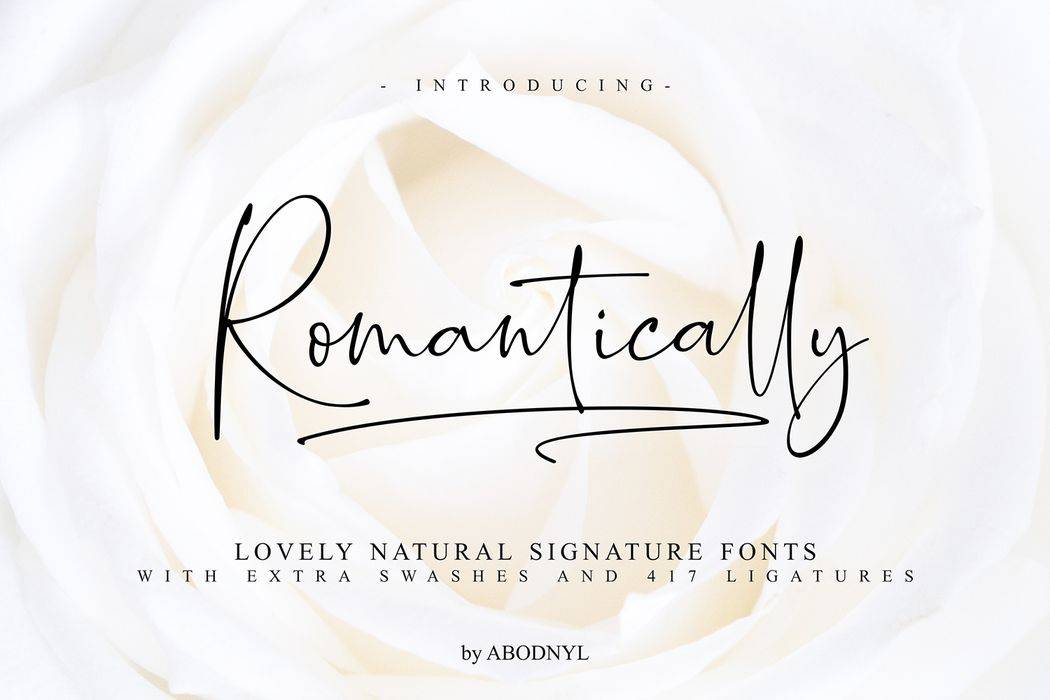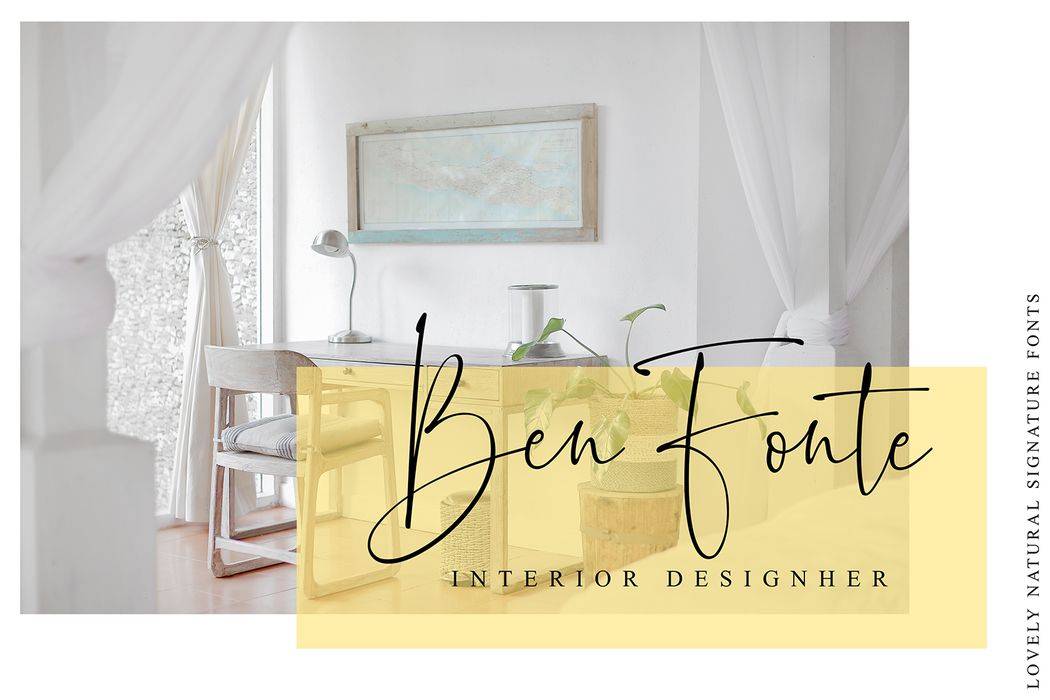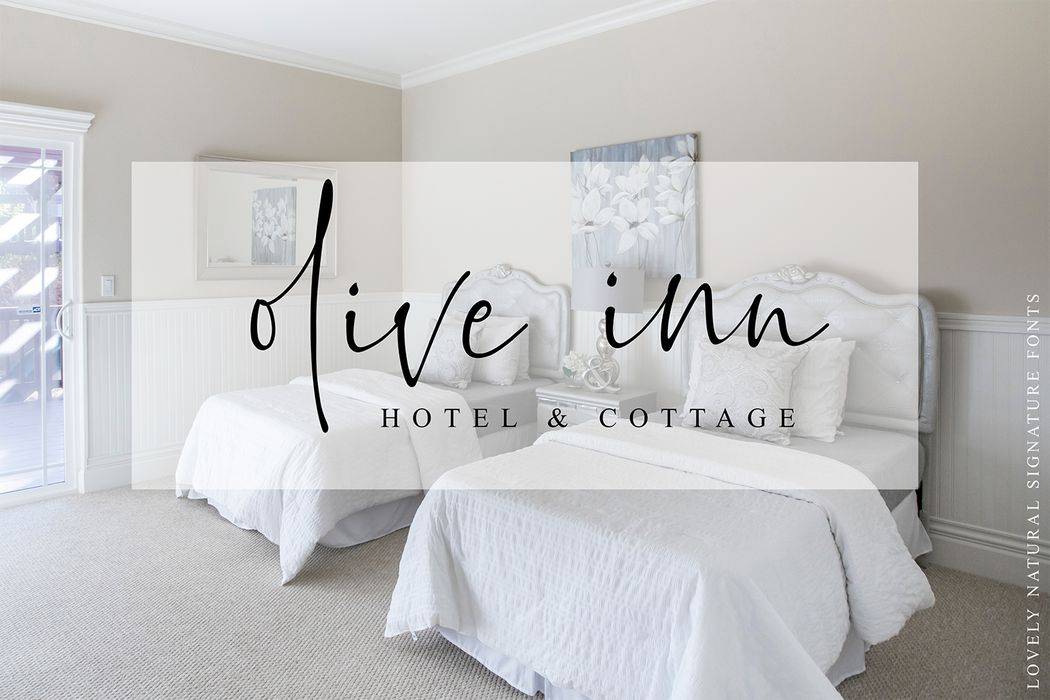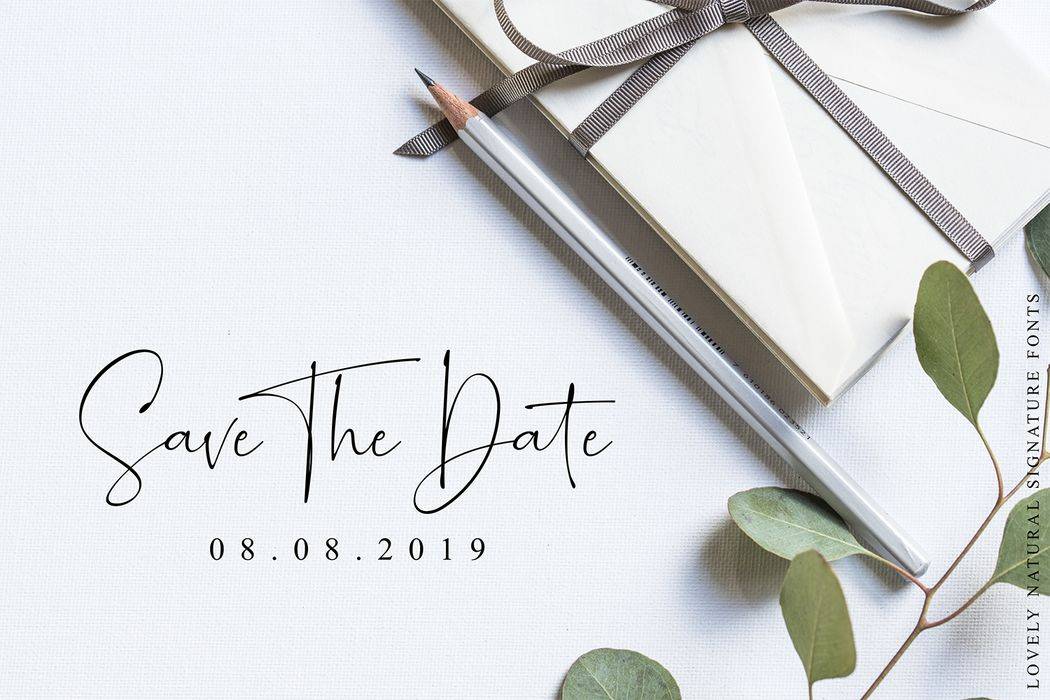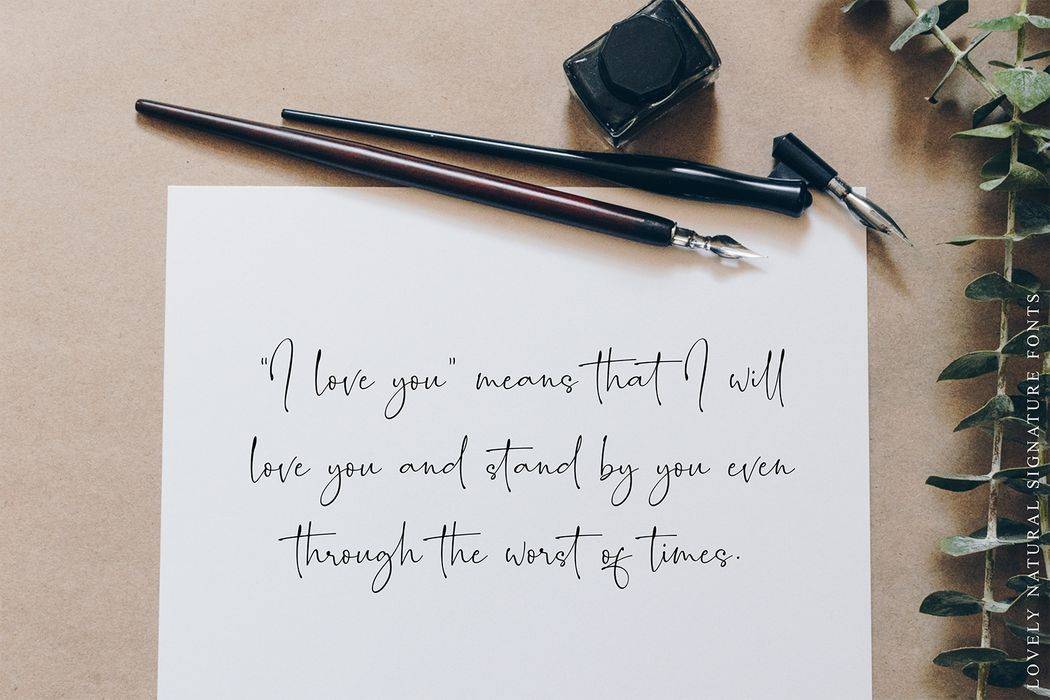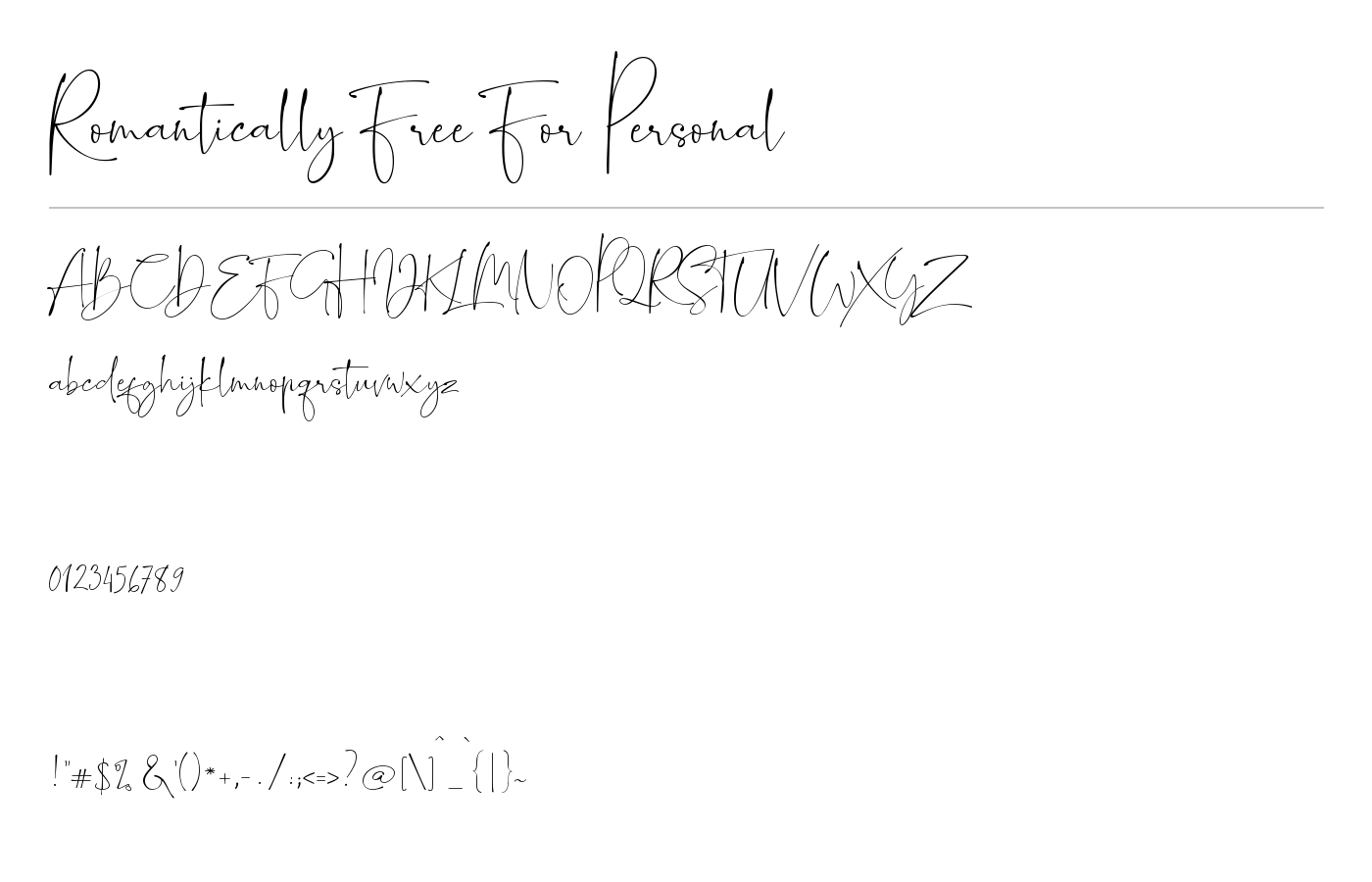
Romantically Font is a delicate, handwritten script with elegant, flowing lines that give it a romantic and personal feel. Its thin strokes and airy spacing make it perfect for designs that want to convey sophistication and intimacy, such as wedding invitations, personal branding, or fashion projects. This font shines best in headlines or short phrases where its graceful and artistic style can truly stand out.
Romantically Font
About Romantically Font
| Font family | Romantically Font |
| Designer | Abo Daniel 2019 |